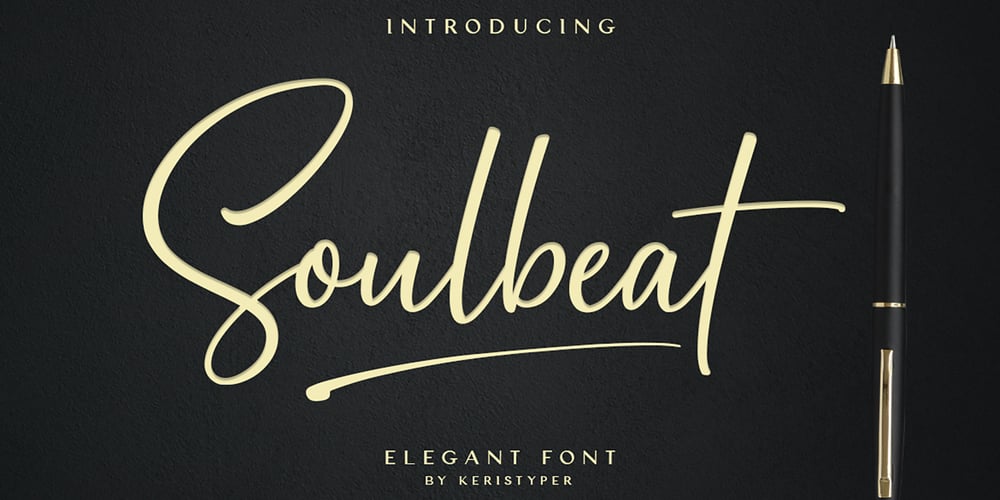
Soulbeat Font Family was designed by Tezar Tantular and published by Keristyper Studio. Soulbeat contains 1 styles and family package options. Introducing Soulbeat Signature Font which has an elegant and natural hand lettering brush style like handmade. This font is best suited for your design projects that are fun, bold, and sporty. Can also be applied to logotype designs, website headers, making multiple letters for quotes, t-shirt designs, etc.Soulbeat Signature Fontmultilingual support: Afrikaans, Albanian, Catalan, Danish, Dutch, English, Estonian, French, Finnish, German, Icelandic, Indonesian, Italian, Malay, Norwegian, Portuguese, Spanish, Swedish, Zulu, and many more.What’s Included : Standard & Multilingual glyphs Ligature Works on PC & Mac Simple installations Accessible in Adobe Illustrator, Adobe Photoshop, Adobe InDesign, and even work on Microsoft Word. Hope you enjoy our font!